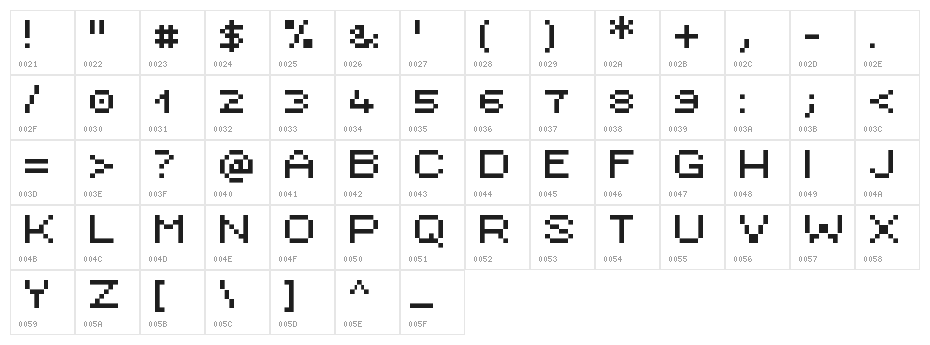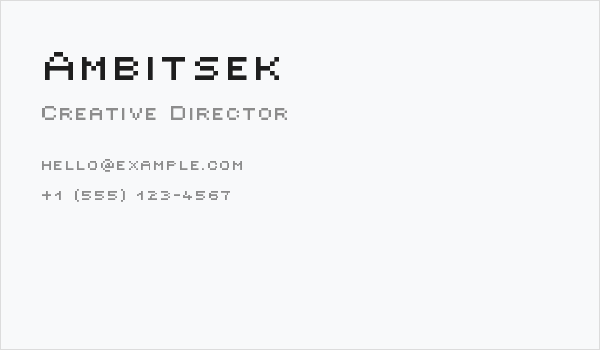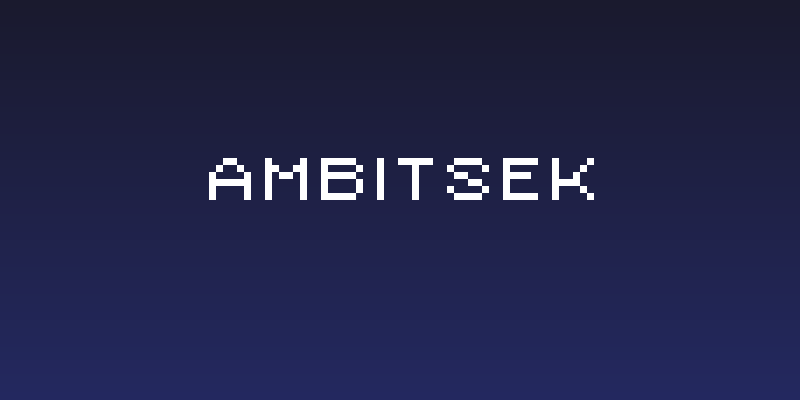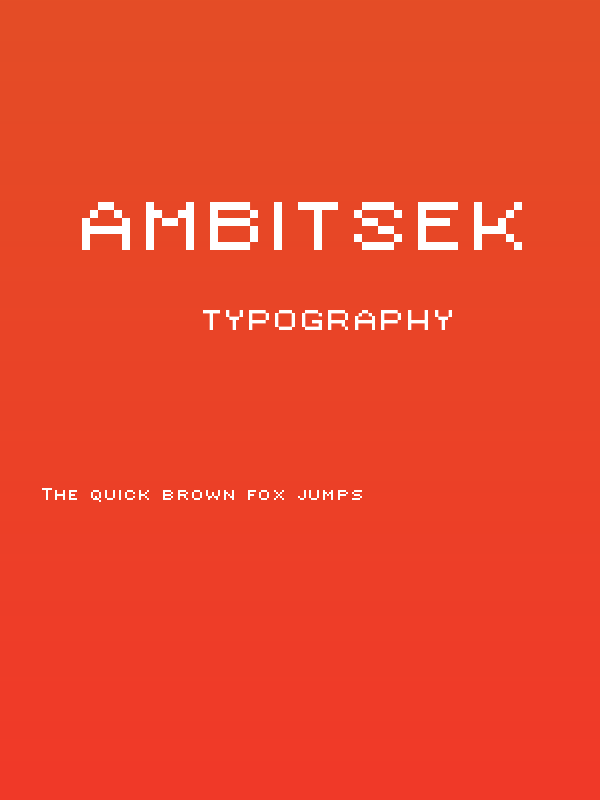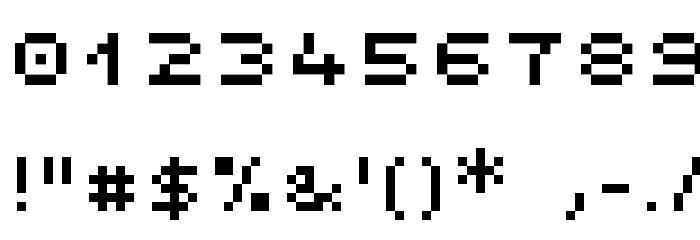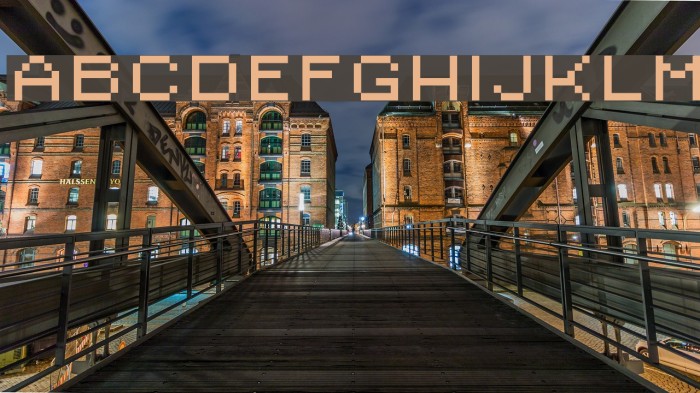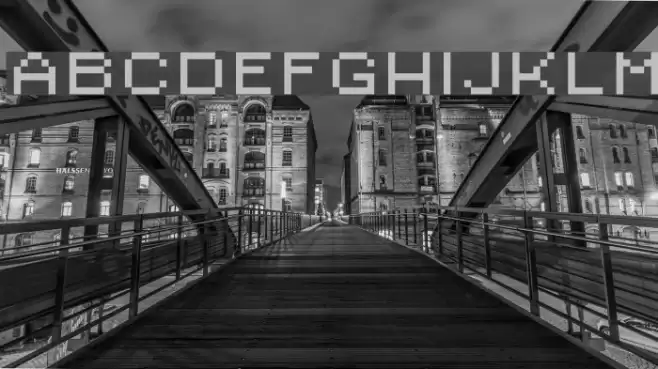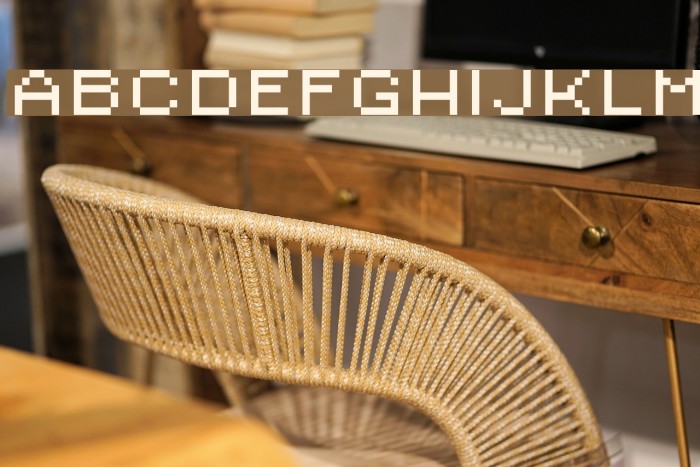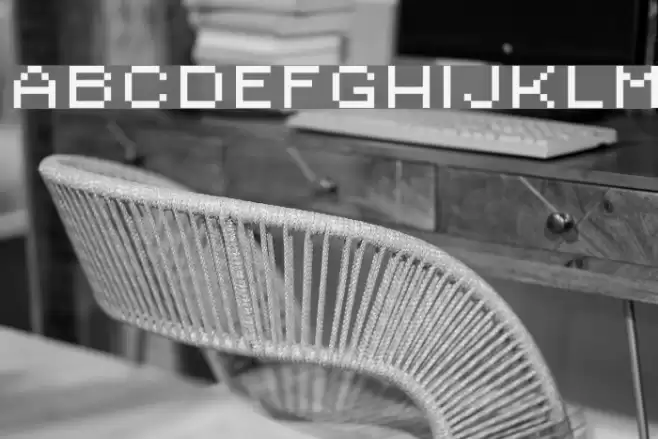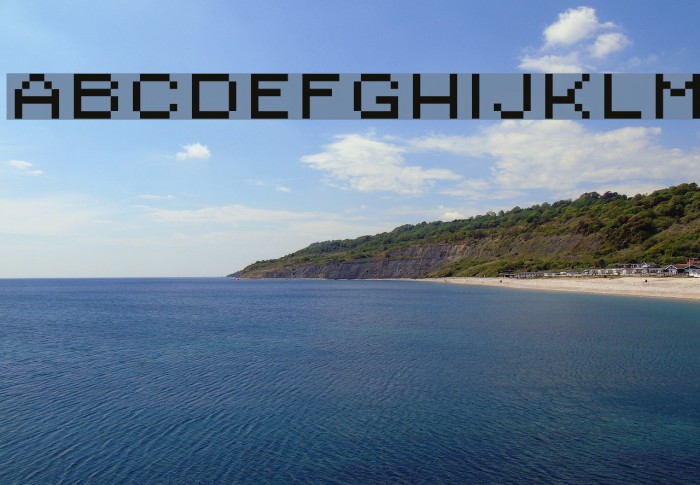
Ambitsek Font
| Catégories | Pixel |
| Style général | Modern, Retro |
| Cas d'utilisation | Logos, Headlines, Digital displays |
| Projets proposés | Ideal for retro video game designs, tech-themed graphics, digital displays, and any project seeking a nostalgic, digital look. |